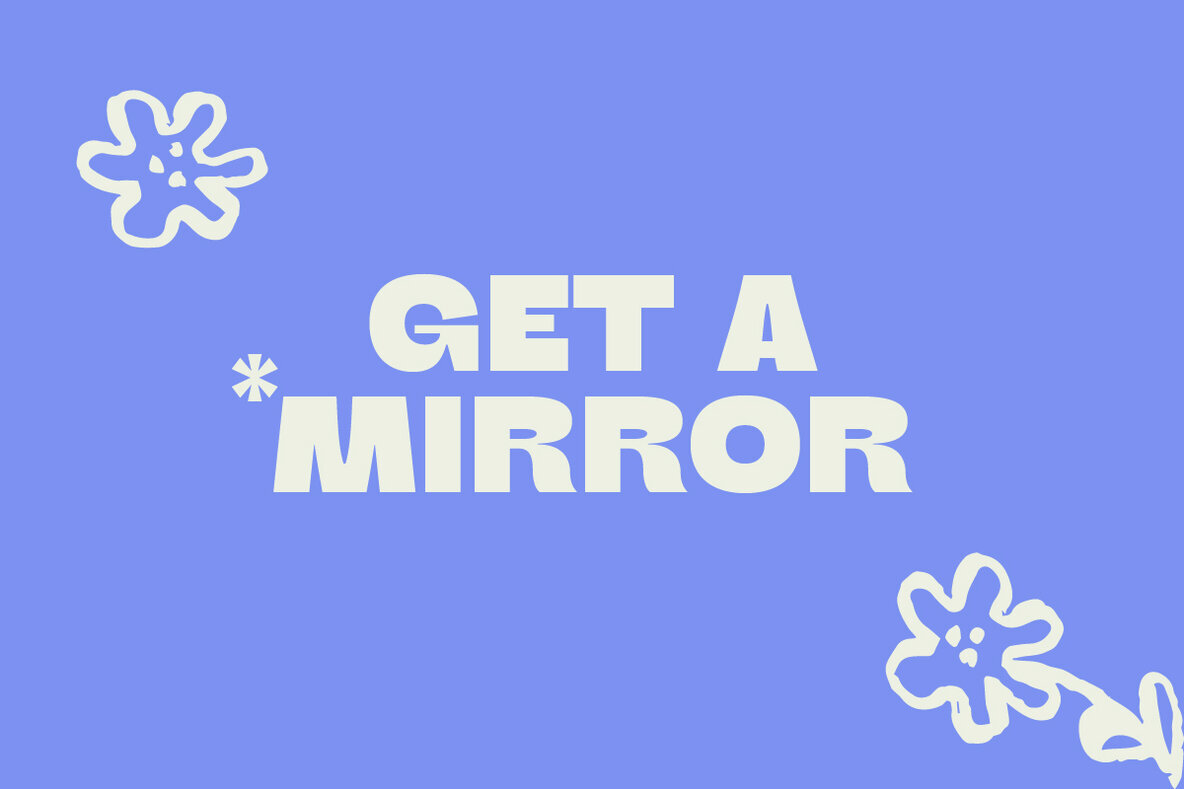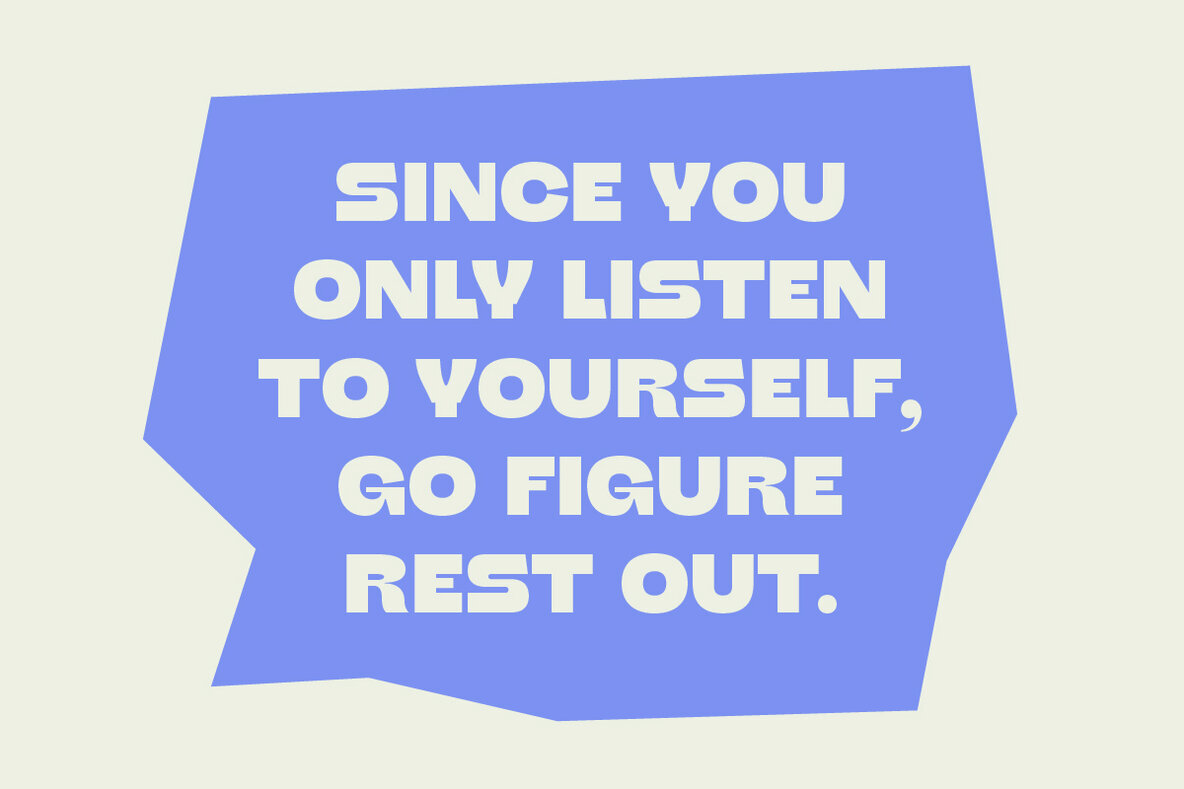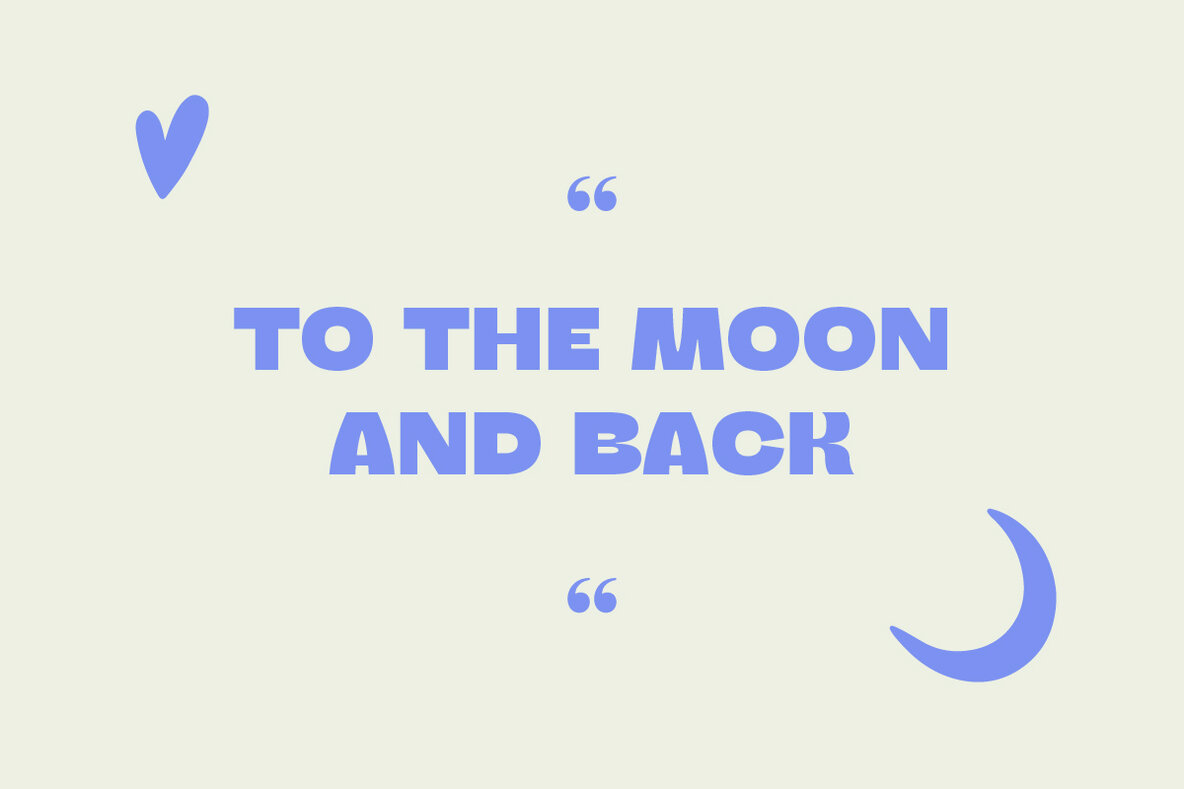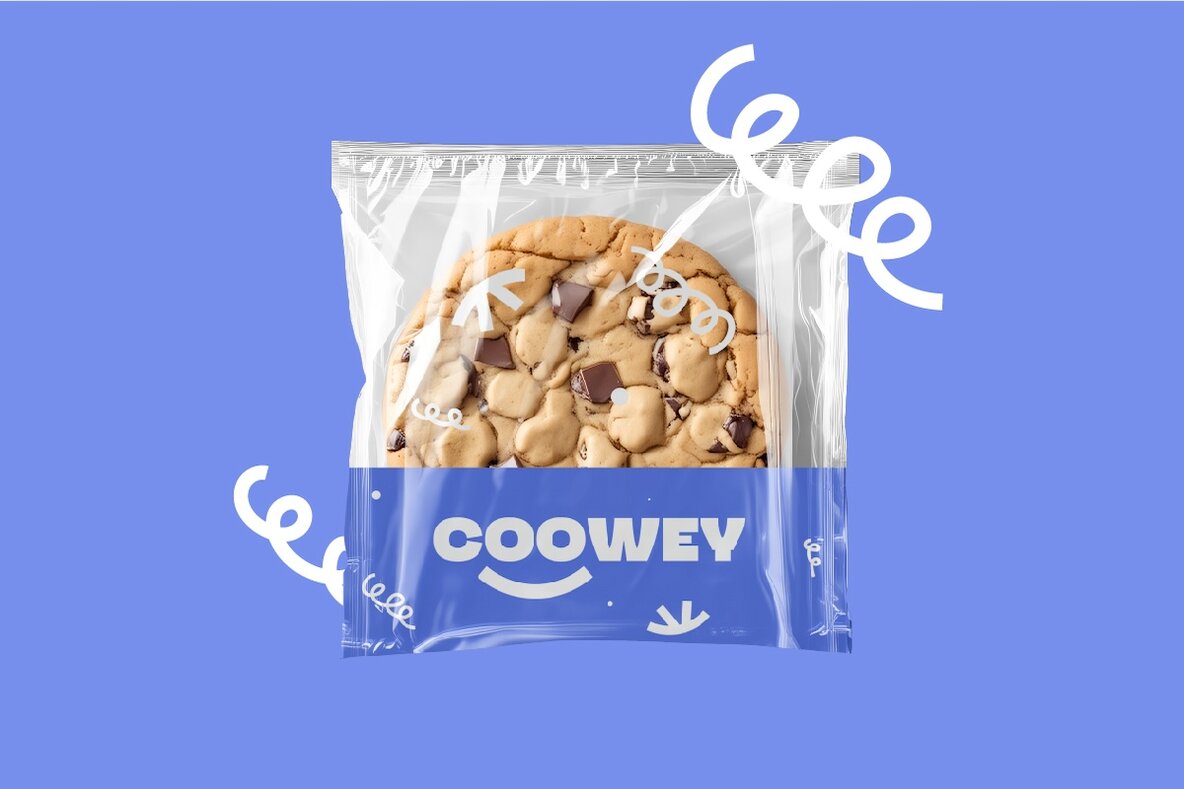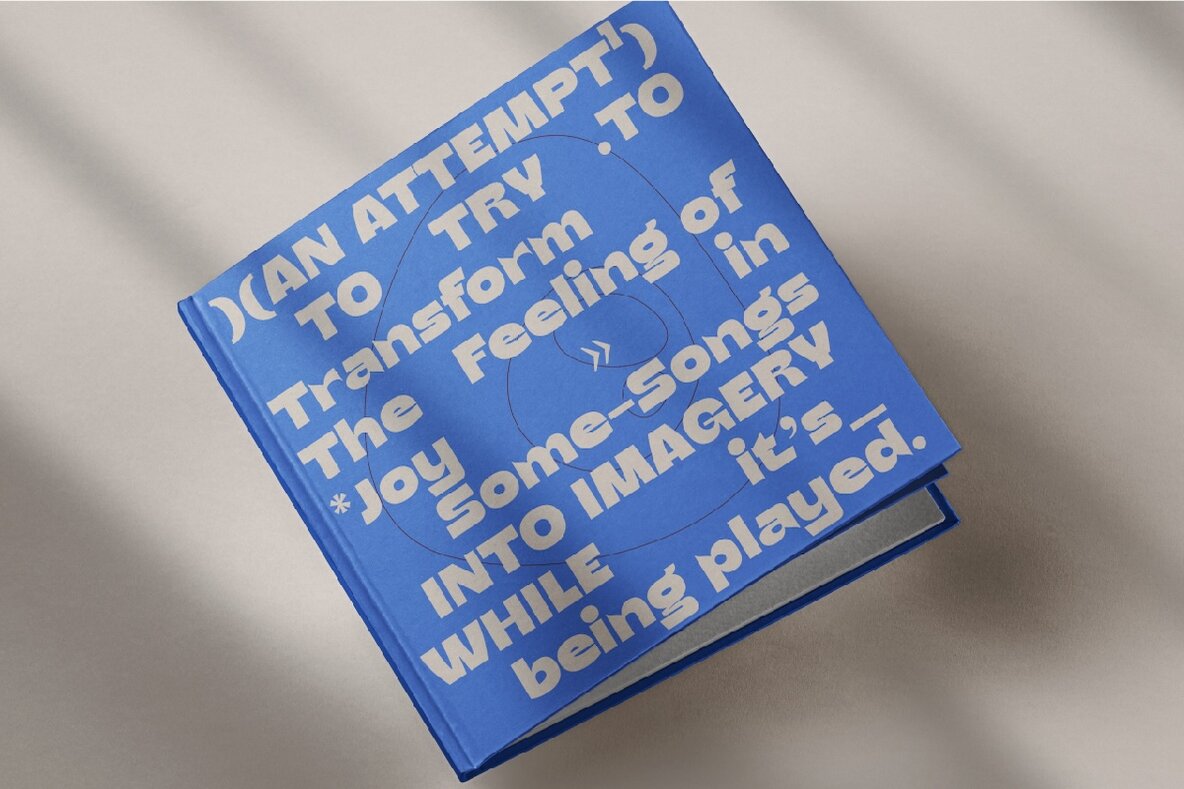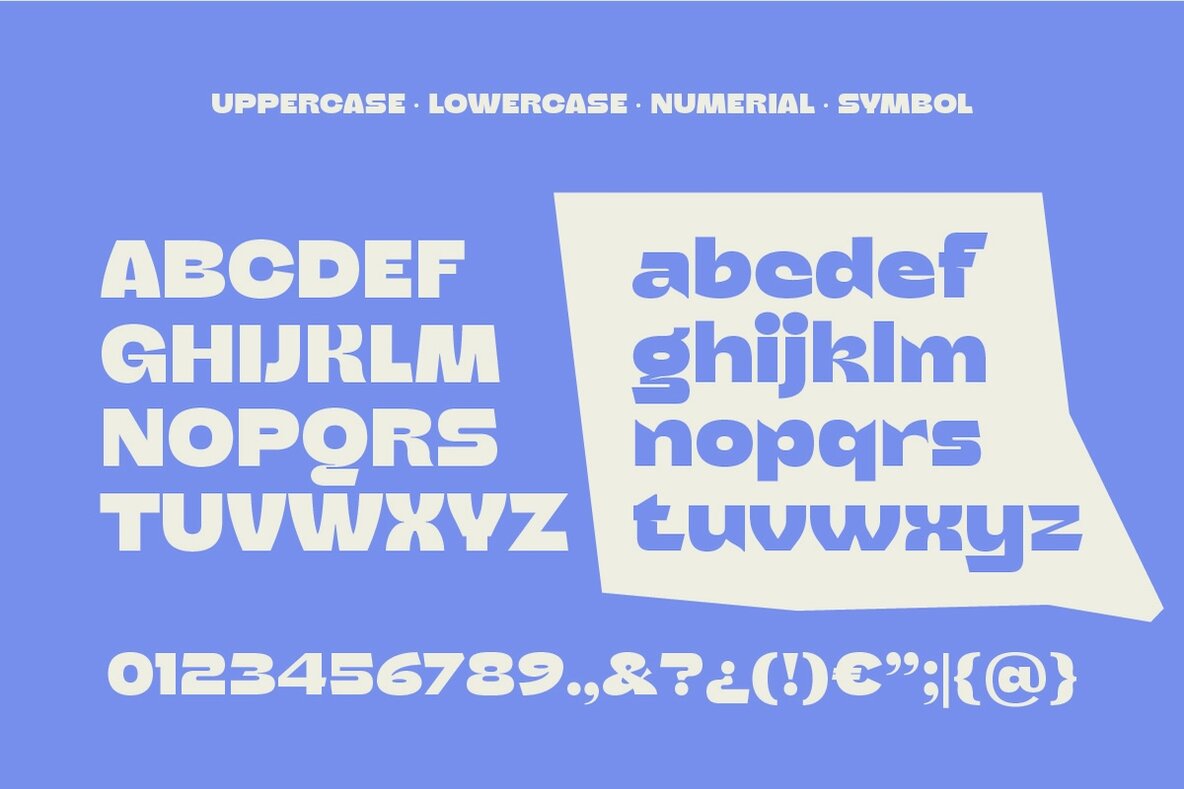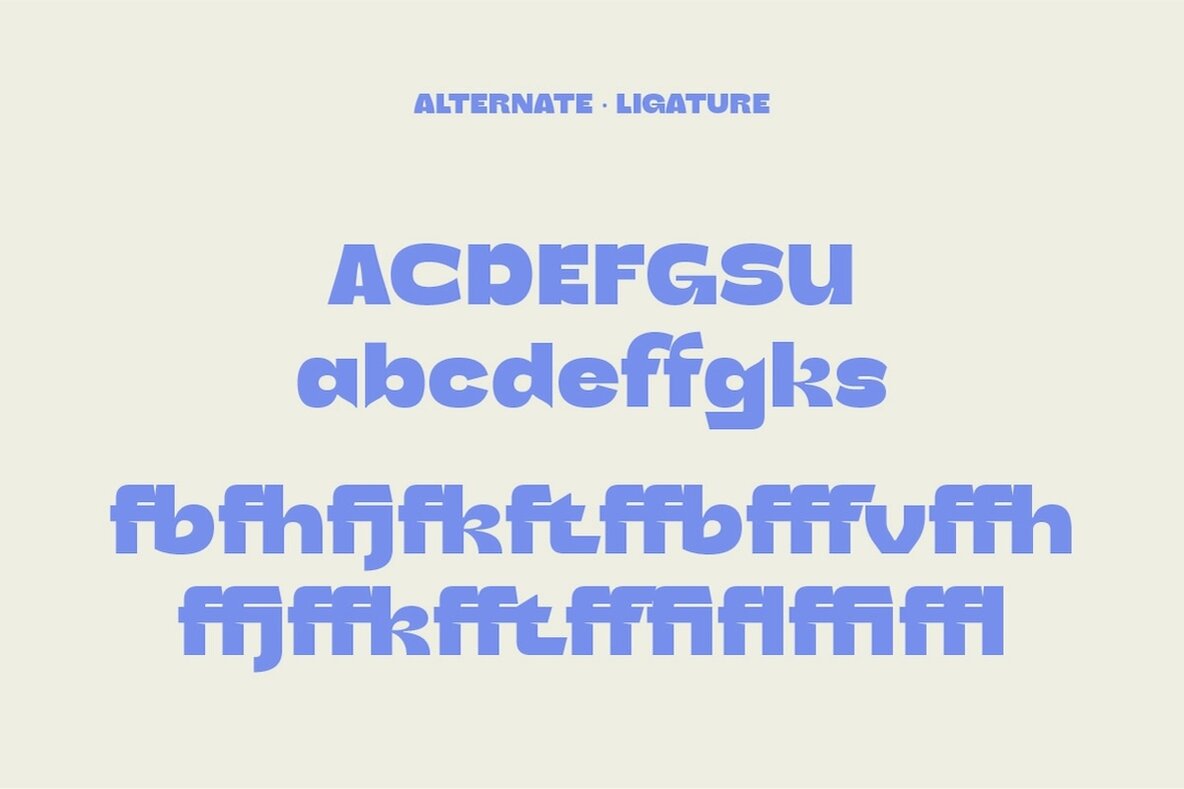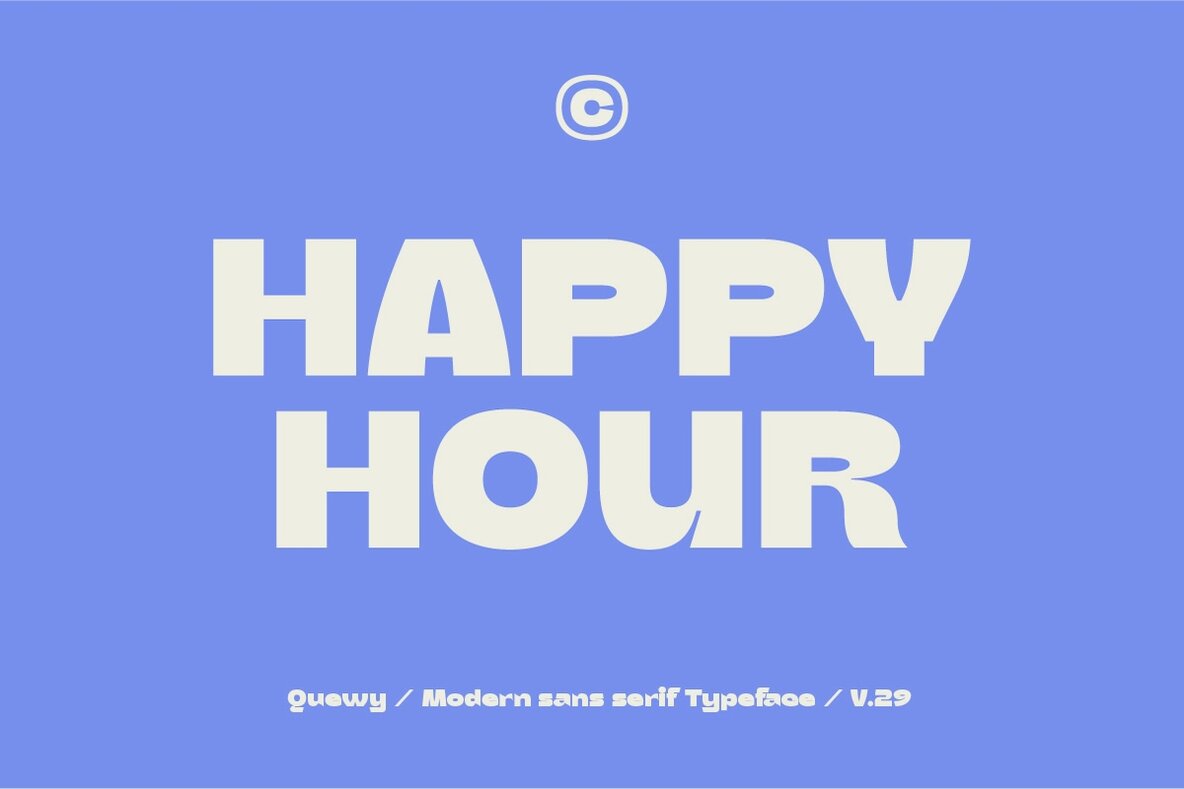
Quewy Font
Quewy Regular
Quewy is a modern sans serif typeface characterized by its playful and bold design. Its chunky and funky style, combined with soft corners, makes it a charming choice for projects that require a friendly and inviting feel. Quewy’s distinct personality makes it ideal for a variety of design applications, ensuring your work stands out with a unique flair.
This typeface is designed to make an impact without being overwhelming, offering a bold look that maintains a sense of warmth and approachability. Whether you're working on branding, graphic design projects, or online media, Quewy provides a strong visual presence that enhances creativity.
Embrace Quewy's quirky and modern style for your next design venture and bring a lively touch to your work.